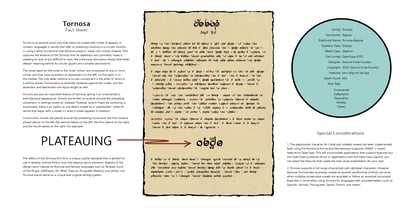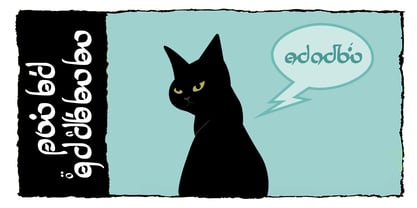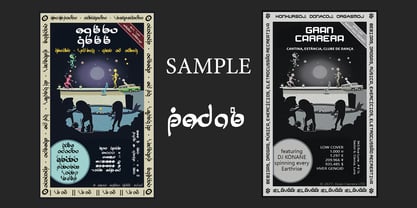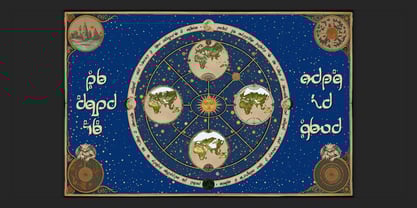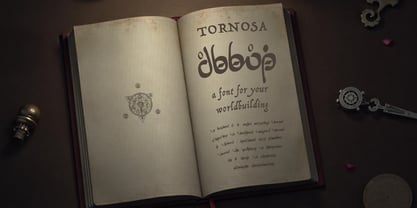
The Tornosa Font Family was designed by Gregory Stevens and published by Second Circle Font Foundry. Tornosa contains 1 styles.
BACKGROUND
Tornos is an ancient word root that means to create with circles. This is the essence of Tornosa: its repetition and symmetry make it pleasing to look at but difficult to read, like a baroque decorative design that hides deeper meaning behind its circular glyphs and complex decorations.
The Tornosa font forms a unique cypher alphabet that is perfect for use in fantasy, science fiction, and role-playing game scenarios. It can be used to create illustrations, props, and accessories for RPG campaigns or festivals with fantasy or science fiction themes. It can be used to add depth and complexity to your worldbuilding for your graphic novels, and in the illustrations for the fantasy or science fiction series you are writing.
DESIGN NOTES
1. The core of the font is the circle. Consonants and consonant combinations are represented by letters composed of one or more circles, and may have ascenders or descenders. The only exception is H, which is a simple vertical stroke. There is no distinction between uppercase and lowercase letters.
2. Vowels are written as accents on the preceding consonant. In settings where isolated “floating” accents might be confusing or overlooked, there is an option to attach vowels to a “placeholder” letter in words that begin with vowels, or when a vowel appears in isolation.
3. Tornosa supports an extensive range of accented letters in order to support the dozens of non-English languages that use the Latin alphabet. Most accents resemble their standard Latin alphabet shapes, although some of them have been modified specifically so that they will not be easily confused with vowels.
4. Punctuation is vertically centered to add to the overall symmetry of the aesthetic in Tornosa. For the same reason, marks that normally are followed by a space (e.g. period, comma, colon, semicolon, question mark, exclamation point) have space added to the left of the mark so that they appear “centered” between words.
5. Letter-like symbols either look like their standard Latin alphabet counterparts, or they have been created based on design principles that make them consistent with Tornosa lettering. For example: the dollar sign is the Tornosa letter “S” with a vertical line through it, the copyright symbol is a small Tornosa letter “c” with a circle around it, the Yen symbol is the Tornosa letter Y with two horizontal strokes through it, and so on.
OPENTYPE FEATURES
Consonant pairs and vowel-vowel combinations are implemented as OpenType required ligatures. Most programs allow you to activate OpenType required ligatures, or activate them by default.
Designers: Gregory Stevens
Publisher: Second Circle Font Foundry
Foundry: Second Circle Font Foundry
Design Owner: Second Circle Font Foundry
Tornosa
About Second Circle Font Foundry
The Second Circle Font Foundry designs fonts that can add depth and style to your worldbuilding. Based in New Orleans, a city known for its rich mythology and folklore, The Second Circle began as a hobby to support role-playing campaigns and storytelling among a group of friends. Bolstered by support from the community, it has grown into much, much more. Whether you are creating props and costumes for themed festivals like Wasteland Weekend and Neotropolis, or writing and illustrating an RPG campaign or graphic novel, the Second Circle Font foundry is here to inspire you and let your creativity shine.You can find more information and support materials for our fonts and our foundry on our website, https://secondcircle.pro/